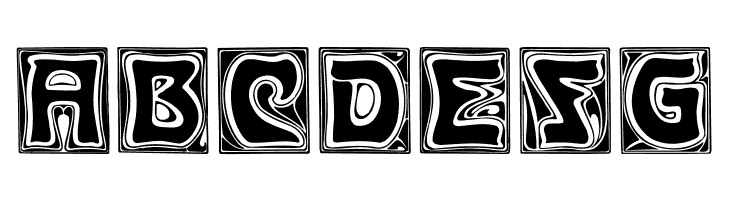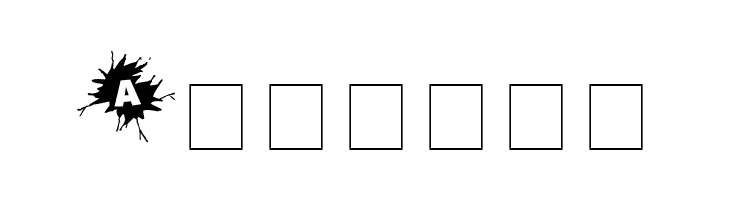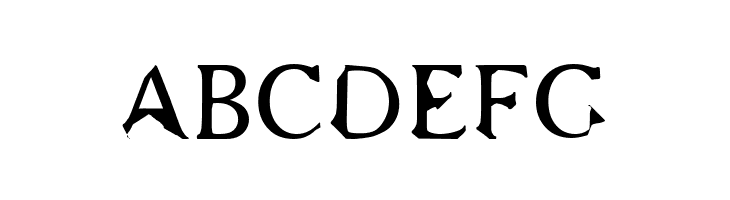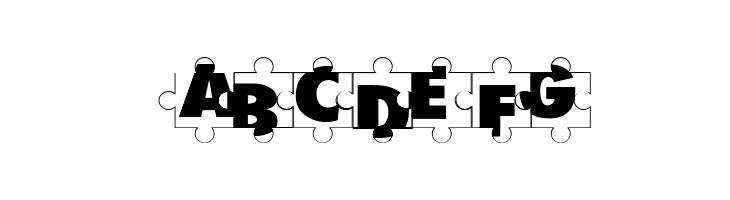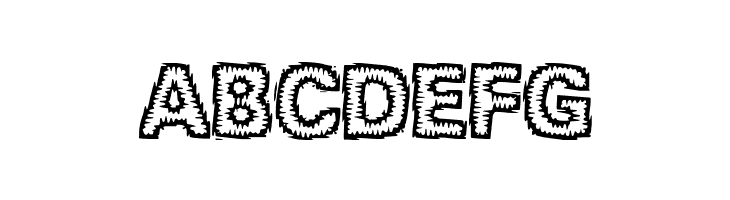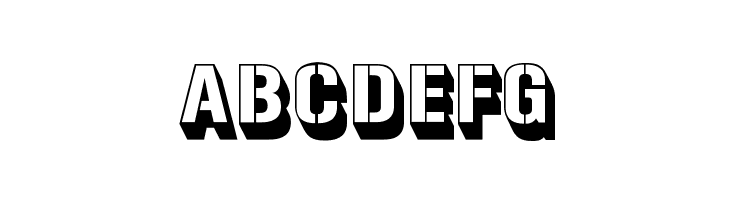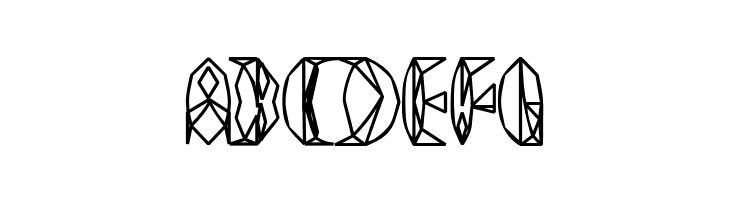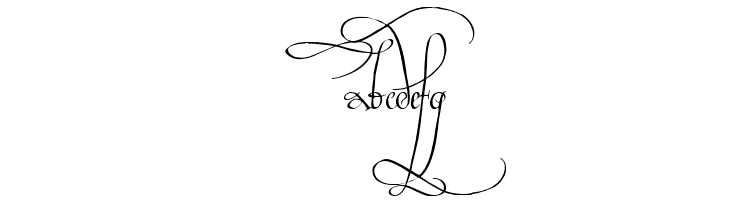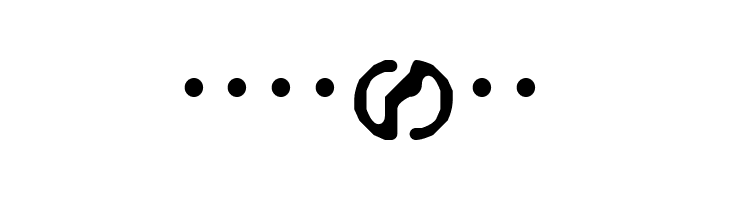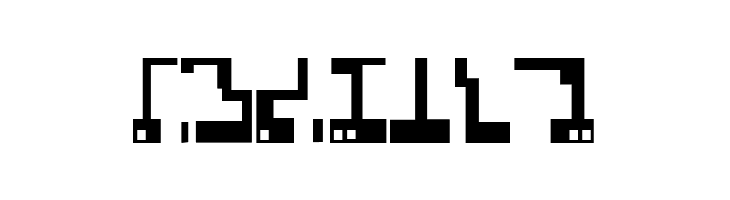
A decorative font with intricate, swirling patterns and high contrast strokes.
A bold, serif font with a medieval flair and sharp, angular serifs.
An intricate and decorative script font with elegant swirls and loops.
An ornate, decorative font with floral embellishments.
An ornate and decorative font with intricate patterns and a vintage flair.
A decorative and intricate font with swirling, organic designs.
A bold, retro-inspired font with a condensed and dynamic style.
A bold, geometric font with a three-dimensional, beveled design.
An ornate and decorative font with intricate swirls and embellishments.
A geometric, futuristic font with a stencil-like design and bold, angular lines.
A decorative Celtic-inspired italic font with intricate knot patterns.
A bold, 3D box-style font with sans-serif characters encased in cube-like structures.
A bold, decorative font with a dynamic echo effect.
A whimsical and decorative font with intricate patterns and star motifs.
An ornate, Art Nouveau-inspired decorative font with intricate designs.
A bold, geometric font with a three-dimensional effect and sharp angles.
A decorative, jungle-themed font with bold letters and intricate foliage designs.
A decorative, maze-like font with a futuristic and abstract style.